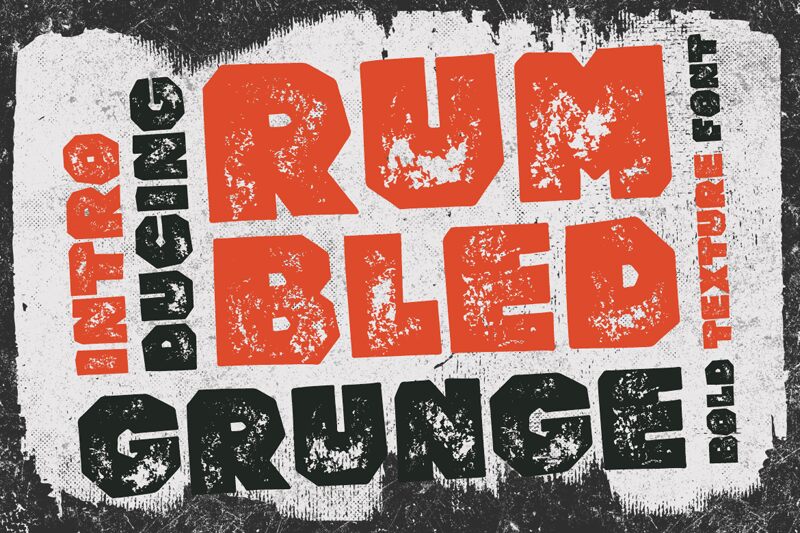
Rumbled Grunge font family by PutraCetol Studio is a free font family that contains 2 font styles. The distorted, eroded text style is bold and impactful and brings ruggedness to your typography designs. Displaying a vintage yet edgy aesthetic, this typeface combines retro influences with modern conceptions beautifully.
Thoughtfully designed to make a strong visual statement, it comes with the rebellious feel that’s quite specific to grunge-inspired visuals. Some great applications of Rumbled Grunge include apparel and interior art projects for buildings such as coffee shops and restaurants, branding and packaging designs for drink businesses such as breweries, and music album covers, especially for rock and metal bands.
It also looks fantastic in marketing posters and banners, social media posts, digital ads, and short animated adverts. It’s free for personal use, so you’ll need a proper license for any commercial endeavors.